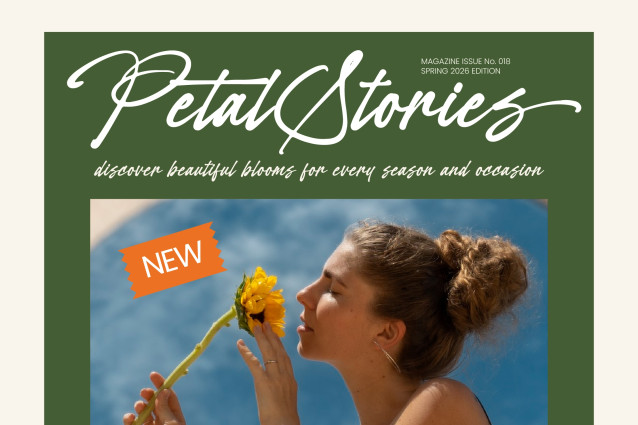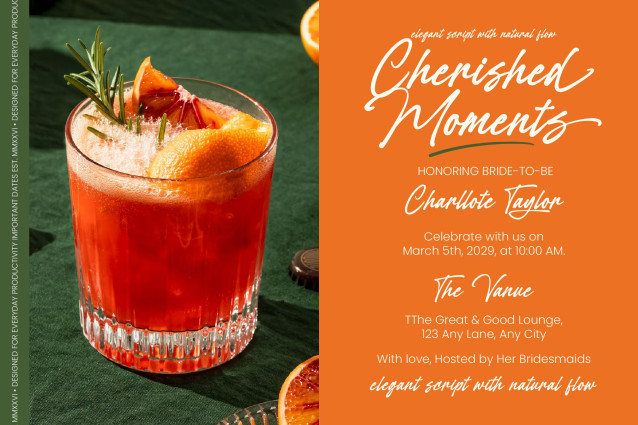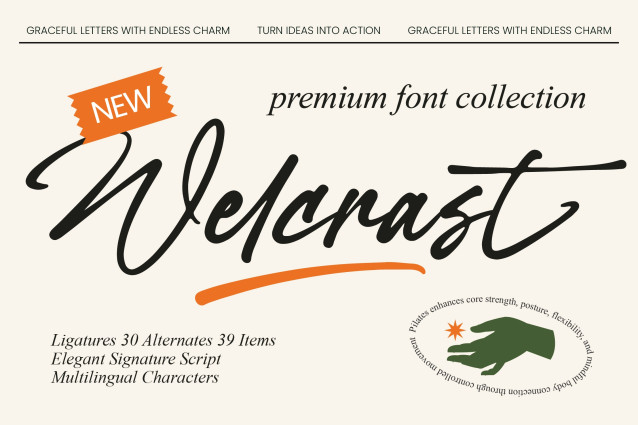
Welcrast – Elegant Signature Script is a premier choice for designers seeking a bespoke hand-drawn aesthetic that feels both personal and professional. This sophisticated signature font offers a perfect balance of organic movement and refined elegance, ensuring your headlines command attention with an unmistakable sense of exclusivity.
Achieve global impact without sacrificing artistic integrity or personal style. With its extensive multilingual support, Welcrast – Elegant Signature Script adapts seamlessly across global markets, making it incredibly versatile for international projects. It features a comprehensive set of ligatures and alternates that allow for a truly customized typographic experience, ensuring your brand’s voice remains consistent and resonant across various linguistic landscapes.